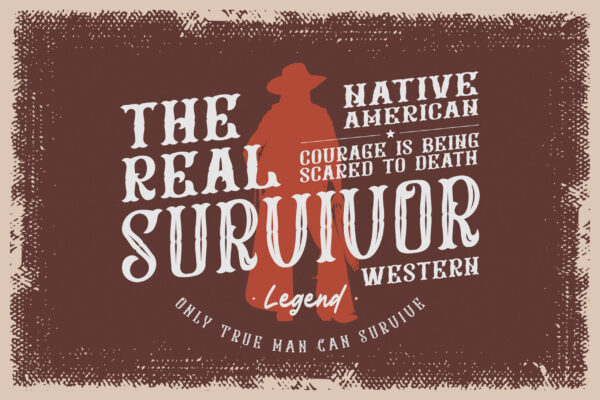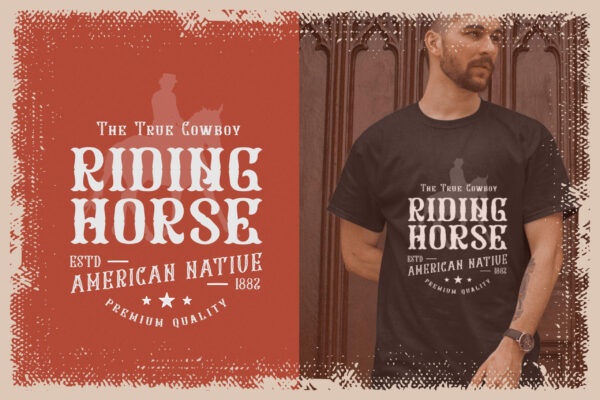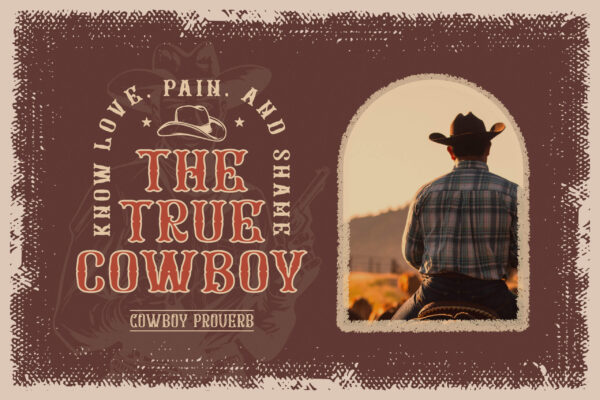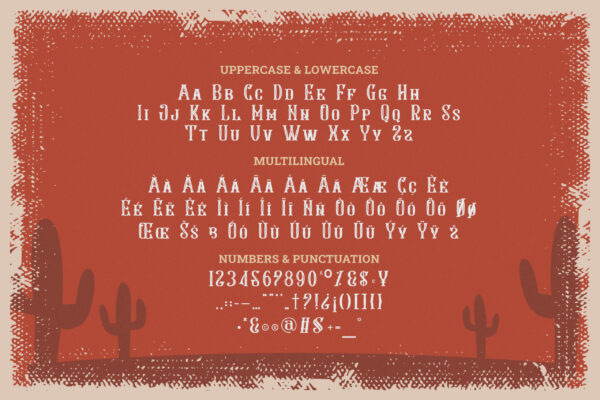
Janggo is a rugged cowboy western font inspired by vintage Americana and wild frontier spirit. With its bold slab serifs, distressed texture, and rustic curves, Janggo captures the true essence of the Old West. Perfect for posters, logos, apparel, or any design that needs a gritty, adventurous personality, this typeface delivers a strong presence with classic western flair.
This font includes uppercase and lowercase characters, multilingual support, numerals, and punctuation. Making it versatile for various branding and creative uses. Whether you’re designing for western-themed events, country bands, ranch labels, or authentic vintage merch, Janggo brings the dust, drama, and daring attitude of cowboy culture right into your designs.
Janggo